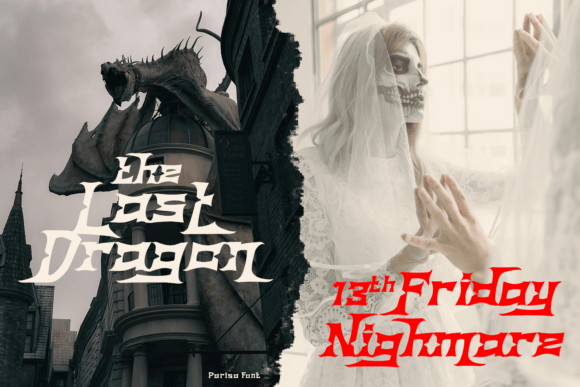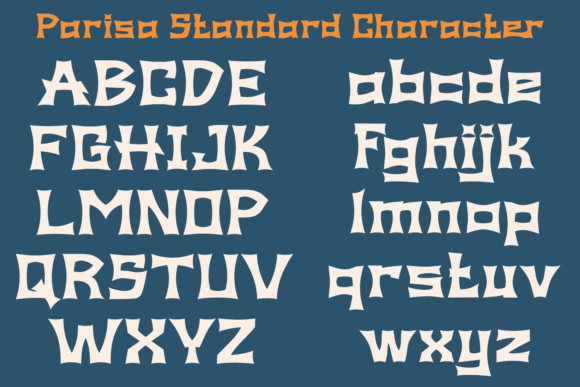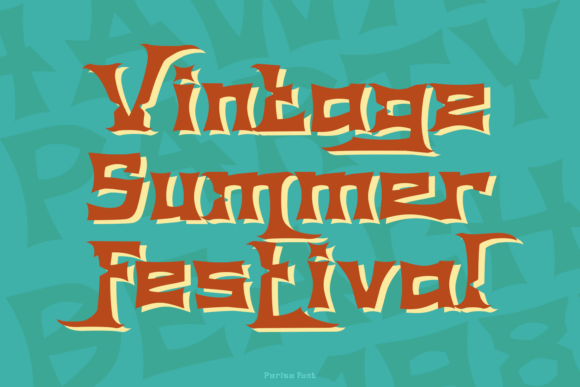
Introduction to Parisa Font
Parisa is a striking display font inspired by the elegance of the empire era.
It delivers a strong, timeless touch with its bold shapes, expressive details, and refined legibilityβ€”all crafted in a single weight Designed to capture both vintage charm and classic sophistication, Parisa is perfect for projects that call for elegance and luxury.
Key Features of Parisa Font
Why Choose Parisa Font?
Parisa Font offers exceptional quality and versatility, making it a valuable addition to your design toolkit. Whether you’re creating for personal projects or commercial use, Parisa Font delivers professional results.